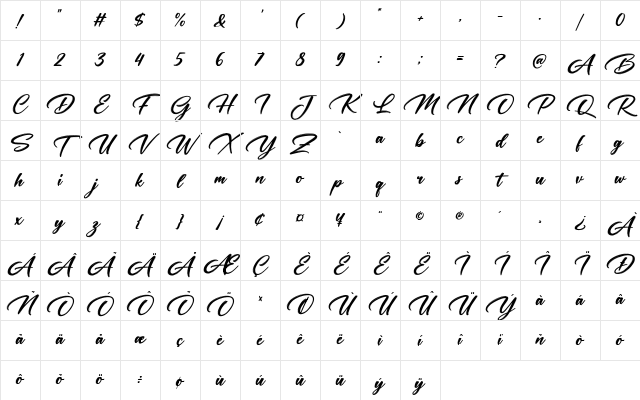
Daughter of Fortune Regular
Foundry: Octotype
Designer: Octotype
Design Context for Daughter of Fortune
Daughter of Fortune is a composed and adaptable typeface that performs quietly and consistently across a wide range of design contexts.